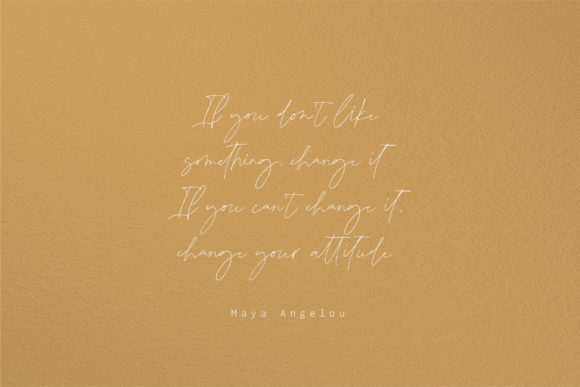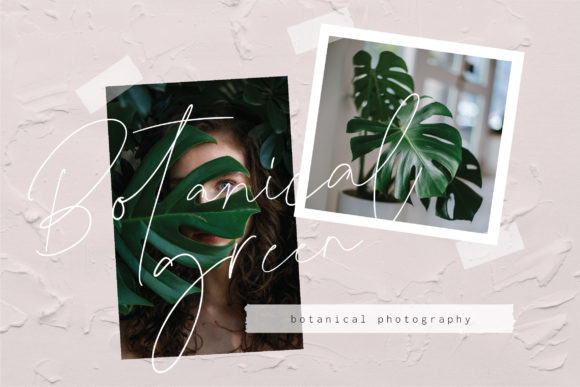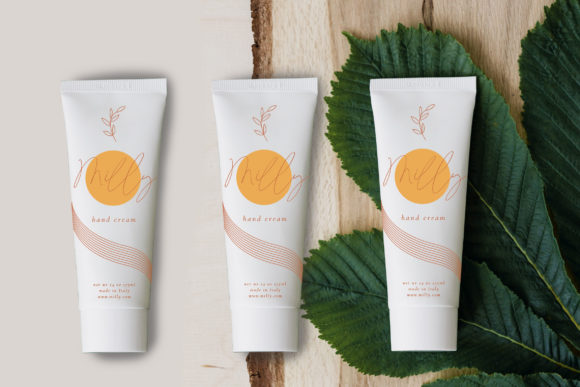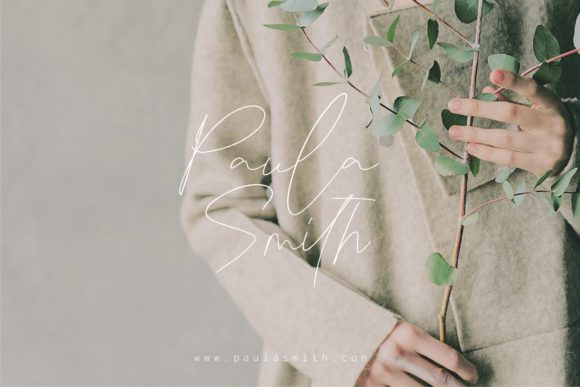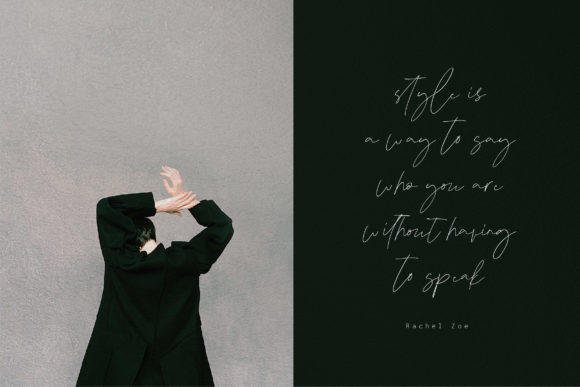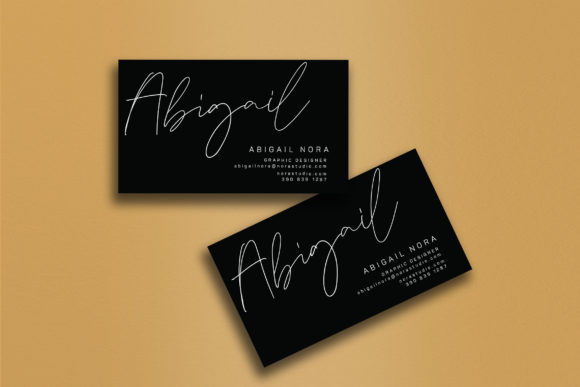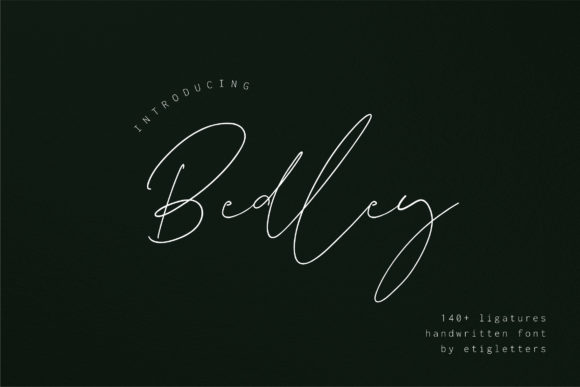
Introducing Bedley Font: The Ultimate Handwritten Font for Your Creative Projects
Are you a designer or crafter looking for a font that adds a personal touch to your creations? Look no further than Bedley Font, a relaxed and timeless handwritten font that’s perfect for a variety of projects. From wedding invitations to business cards, Bedley Font is the ideal choice for anyone seeking a unique and elegant look.
What Makes Bedley Font Special?
Bedley Font is a beautifully crafted handwritten font that exudes a sense of calmness and sophistication. Its relaxed and natural feel makes it perfect for designs that require a personal touch. Here are some of the key features that make Bedley Font stand out:
- PUA Encoded: Bedley Font is PUA encoded, which means you can access all of the glyphs and swashes with ease. This makes it easy to customize your designs and add a personal touch.
- Varying Baseline: The font features a varying baseline, which gives it a natural and handwritten feel. This makes it perfect for designs that require a more organic look.
- Smooth Lines: Bedley Font has smooth lines that give it a elegant and sophisticated feel. This makes it perfect for designs that require a high level of professionalism.
- Gorgeous Glyphs: The font comes with a range of gorgeous glyphs that can be used to add a personal touch to your designs.
- Stunning Alternates: Bedley Font also features stunning alternates that can be used to add some variety to your designs.
Bedley Font is a versatile font that can be used for a wide range of projects. Here are some of the most popular uses for this font:
- Wedding Invitations: Bedley Font is perfect for wedding invitations, adding a touch of elegance and sophistication to your designs.
- Thank You Cards: The font is also great for thank you cards, allowing you to add a personal touch to your expressions of gratitude.
- Quotes: Bedley Font is ideal for quotes, adding a touch of elegance and sophistication to your designs.
- Greeting Cards: The font can be used to create beautiful greeting cards for any occasion.
- Logos: Bedley Font can be used to create unique and elegant logos for businesses and brands.
- Business Cards: The font is also great for business cards, allowing you to add a personal touch to your professional designs.
Why Choose Bedley Font?
There are many reasons why Bedley Font is the perfect choice for your creative projects. Here are just a few:
- Unique and Elegant: Bedley Font is a unique and elegant font that adds a touch of sophistication to any design.
- Easy to Use: The font is easy to use and comes with a range of features that make it easy to customize your designs.
- High-Quality: Bedley Font is a high-quality font that’s designed to produce stunning results.
- PUA Encoded: The font is PUA encoded, making it easy to access all of the glyphs and swashes.
Bedley Font is a beautiful and versatile handwritten font that’s perfect for a wide range of creative projects. Its unique and elegant feel makes it ideal for designs that require a personal touch. With its PUA encoding, varying baseline, smooth lines, gorgeous glyphs, and stunning alternates, Bedley Font is the perfect choice for designers and crafters looking to add a touch of sophistication to their designs.